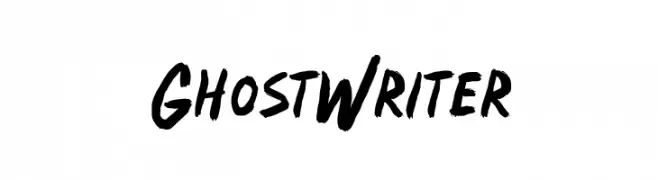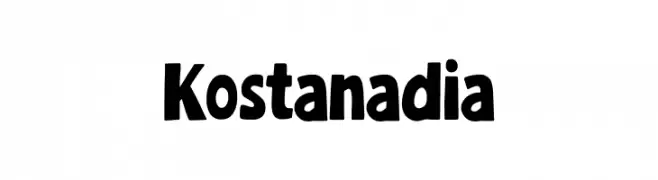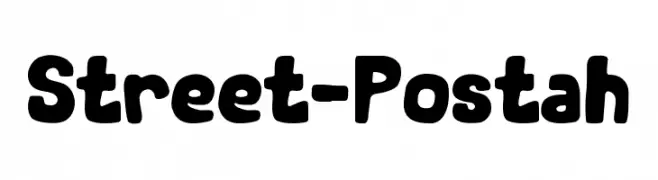
A hand-drawn, playful font with tall, slender letters and varying stroke widths.
A bold, graffiti-inspired font with dynamic, edgy letterforms.
A bold, expressive handwritten font with dynamic brush strokes.
A bold, decorative font with geometric and Sanskrit-inspired elements.
A bold, distressed stencil font with a rugged, military-inspired look.
A playful, decorative font with bold, swirling elements and a whimsical style.
A bold, playful font with thick, rounded strokes and a modern aesthetic.
A bold, angular font with high contrast and geometric shapes, perfect for impactful designs.
A bold, playful font with rounded edges and a hand-drawn feel.